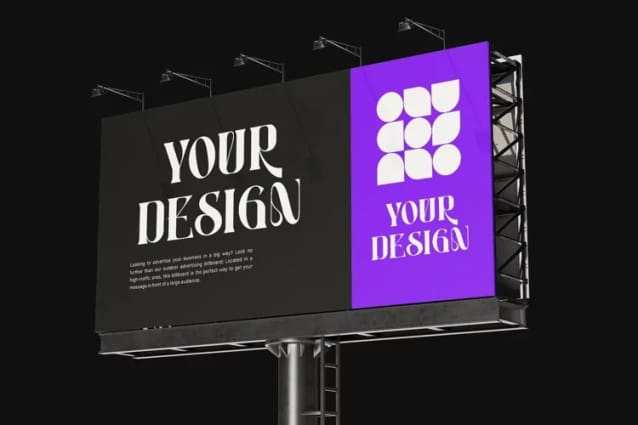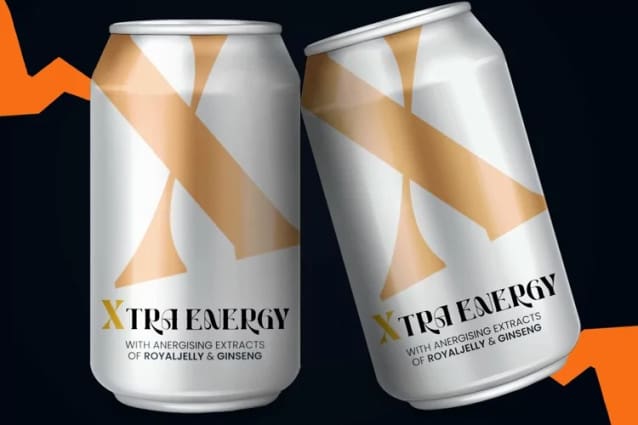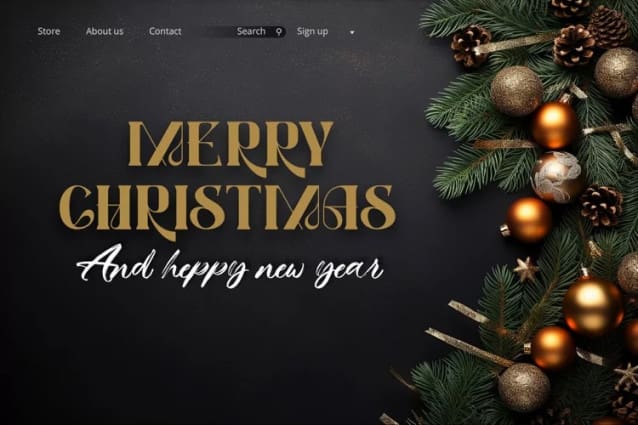
Christmas Frosty Font
Christmas Frosty Font, a captivating serif font designed to make a bold statement and capture attention. With its powerful letterforms exuding strength and confidence, this font is ideal for infusing authority and professionalism into your designs. Whether you’re crafting editorial layouts, branding elements, or eye-catching YouTube thumbnails, Christmas Frosty is the perfect choice to engage your audience and leave a lasting impact. Elevate your designs with the striking sophistication of ChristmasFrosty, a font that seamlessly blends strength and elegance